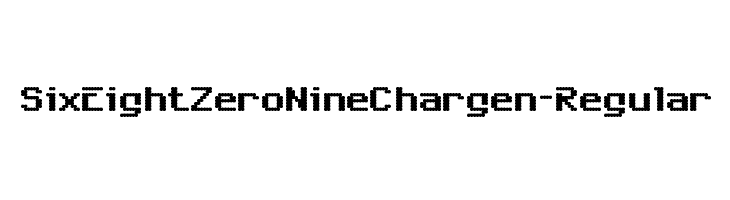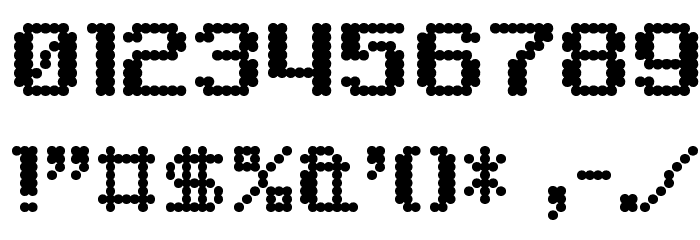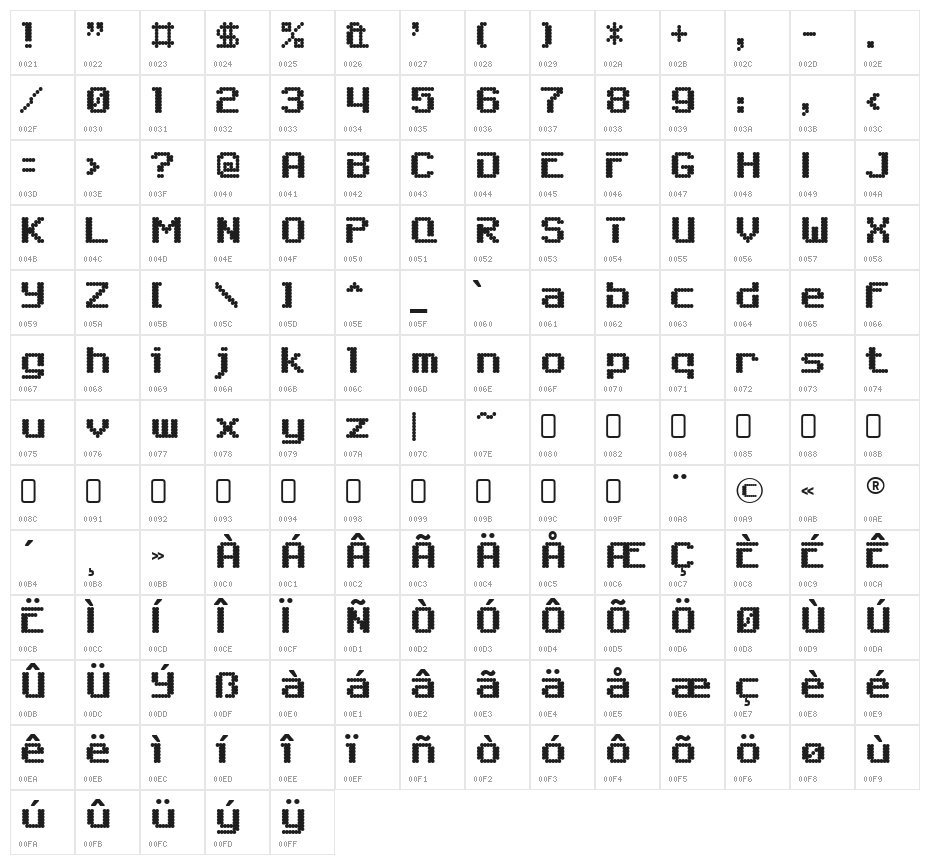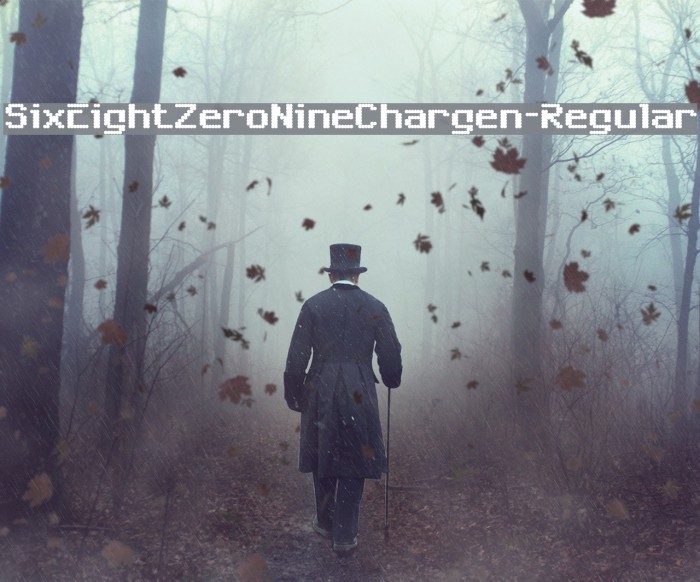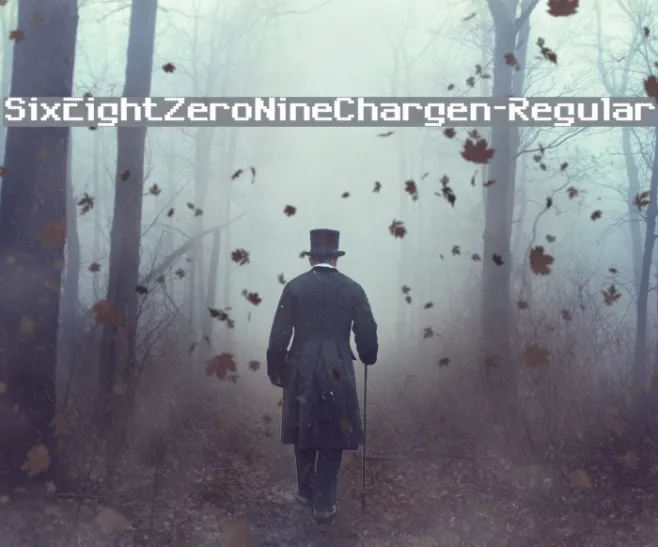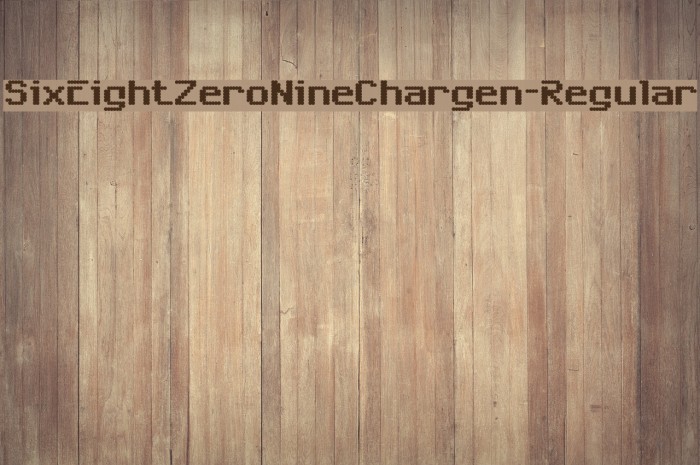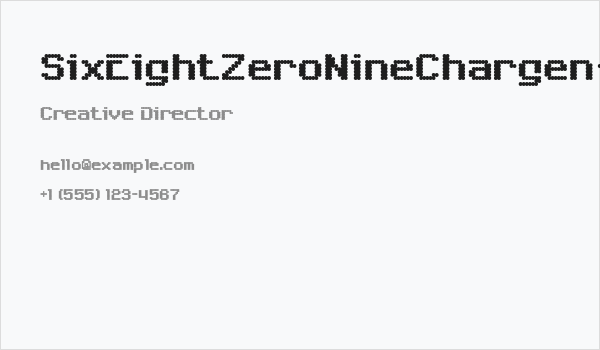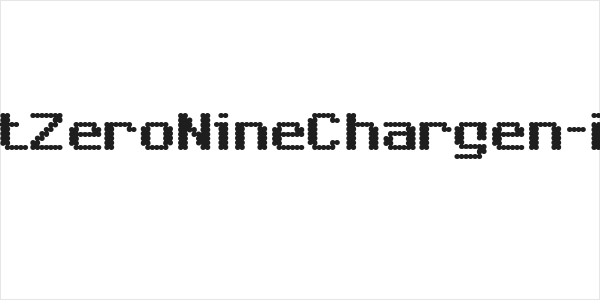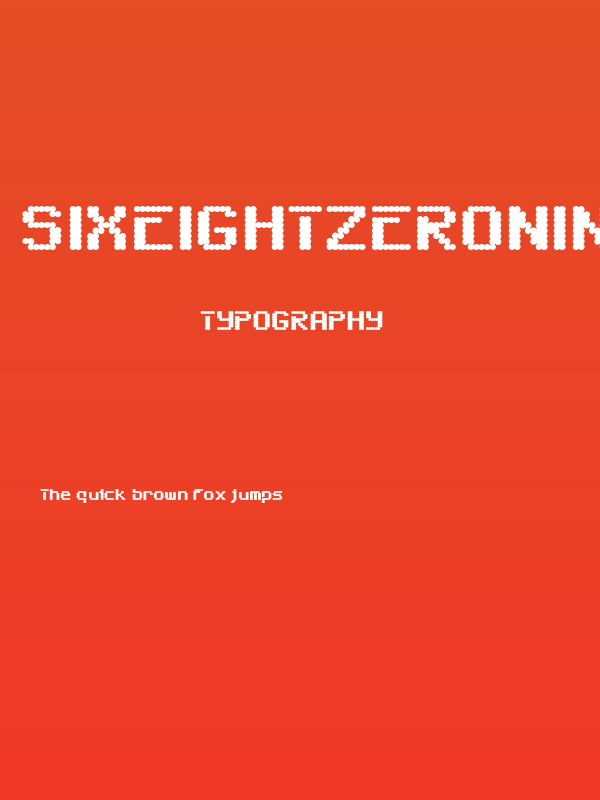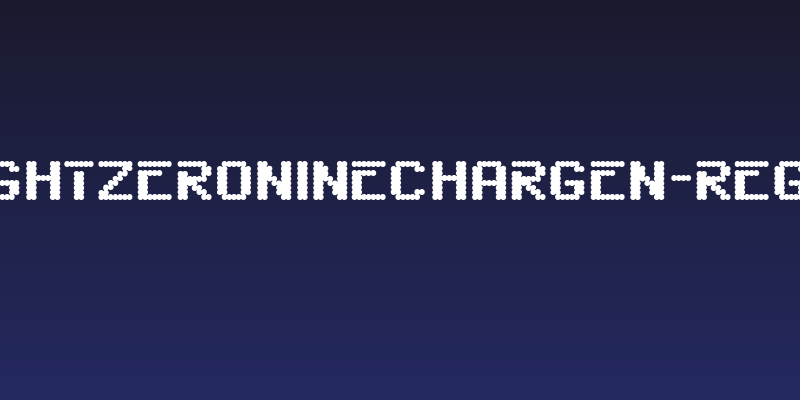
SixEightZeroNineChargen-Regular Font
SixEightZeroNineChargen-Regular Description
This font features a unique design composed of small, circular dots forming each character, giving it a digital or pixelated appearance. The uppercase and lowercase letters maintain a consistent style, with each character clearly defined by the arrangement of dots. The numbers and special characters follow the same pattern, ensuring uniformity across the entire set. This design is reminiscent of retro digital displays, making it stand out with its distinct, playful aesthetic. The font's structure is geometric and modular, with each character having a blocky, grid-like formation. This style is particularly eye-catching and can be used to convey a sense of nostalgia or modern digital themes.
| Use Case | Logos, Headlines, Posters, Digital Art |
| Proposed Projects | Ideal for digital art projects, retro-themed designs, video game graphics, or any creative work requiring a unique, pixelated look. |